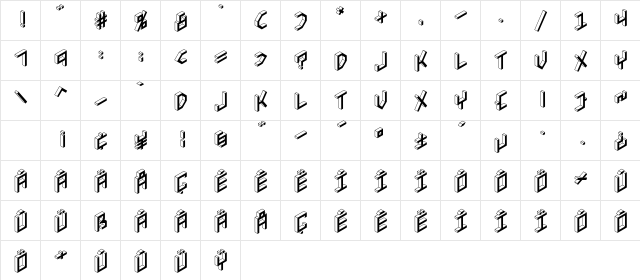
3D Isometric Bold Free Font
3D Isometric Bold
Designer: GGBotNet
Design Context for 3D Isometric
3D Isometric is a composed and adaptable typeface that performs quietly and consistently across a wide range of design contexts. Its bold stroke weight gives it real presence on the page.